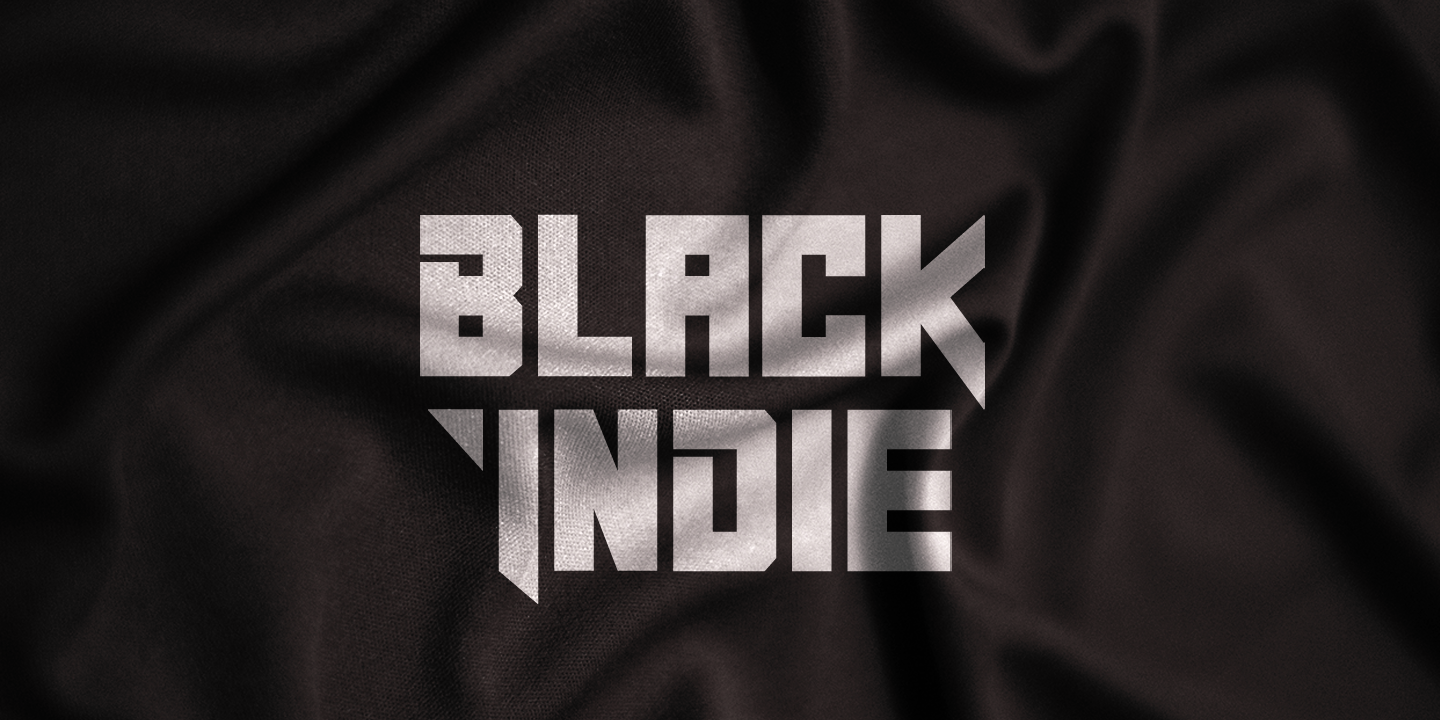
Black Indie Font is perfect for independent record labels, alternative music venues, underground art galleries, indie film production companies, creative freelancer portfolios, artisan coffee shops, and authentic counterculture brands. This distinctive typeface embodies artistic rebellion and independent spirit, bringing authentic alternative culture and creative freedom to any design project celebrating non-mainstream artistic expression.
What makes Black Indie Font exciting is its striking combination of dark sophistication and independent artistic vision that perfectly captures the essence of underground creative movements and alternative culture authenticity. The font features bold letterforms with edgy character variations and unconventional details that evoke handmade concert posters and independent zine publications. Its rebellious character attracts creative audiences while maintaining excellent readability for both artistic publications and alternative brand communications.
The Black Indie Font family includes regular and bold weights with complementary distressed variations and indie ornamental elements. The character set features alternative ligatures, underground symbols, creative alternates, and artistic decorative accents that enhance the font's authentic appeal. Extended character support includes music symbols and creative industry icons for genuine independent artist and alternative culture applications.
Whether you're designing independent artist brands, creating alternative music materials, or developing underground cultural content, Black Indie Font Free Download provides exceptional authenticity and versatility. This compelling typeface transforms ordinary text into powerful creative statements that resonate with independent audiences while establishing memorable brand recognition in competitive alternative music, art, and creative industry marketplaces.